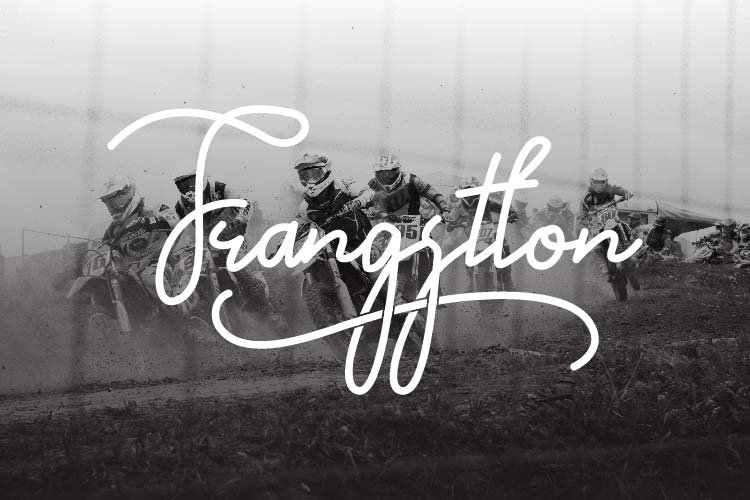
Frangstton - Monoline Script Font
Frangstton
Frangstton - Simple and elegant impression is attached to this font. You can use it in your design projects such as logos, magazine covers, promotions, product packaging, quotes, wedding invitations, product labels etc.